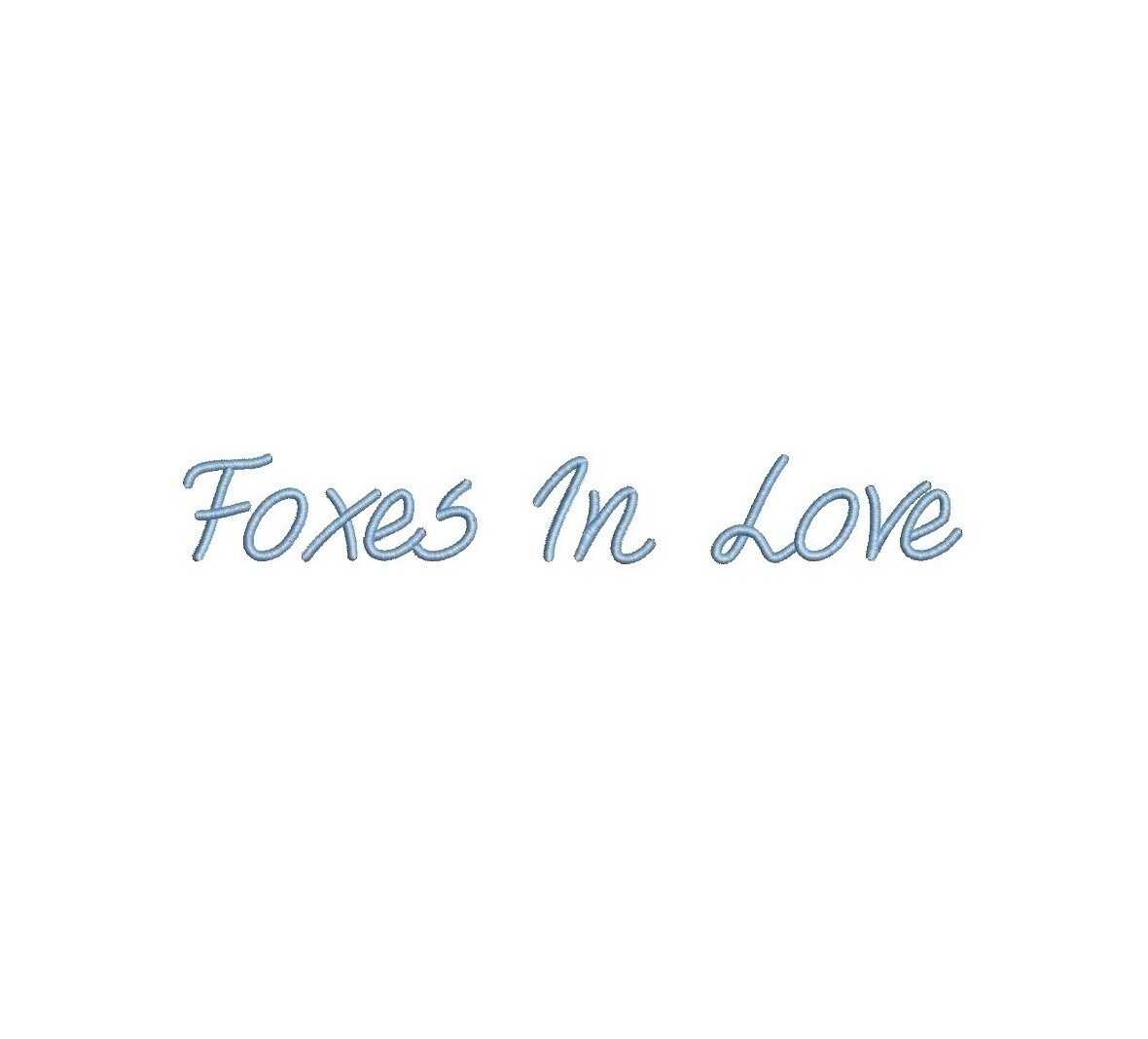
Welcome to the enchanting world of Foxes in Love Regular ESA font, where creativity and romance intertwine. This adorable and playful typeface adds a touch of whimsy to your designs. Crafted with meticulous attention to detail, this premium font guarantees a seamless and enjoyable design experience. Compatible with Wilcom Studio e4.5.6 and Hatch 3 versions and up, it ensures smooth embroidery creation. Whether it's love-themed projects, cute illustrations, or heartfelt crafts, Foxes in Love Regular ESA font brings a sense of joy to any endeavor. Embrace its sweet charm and create designs that capture hearts. Don't miss out on this delightful gem; get it now and spread the love.